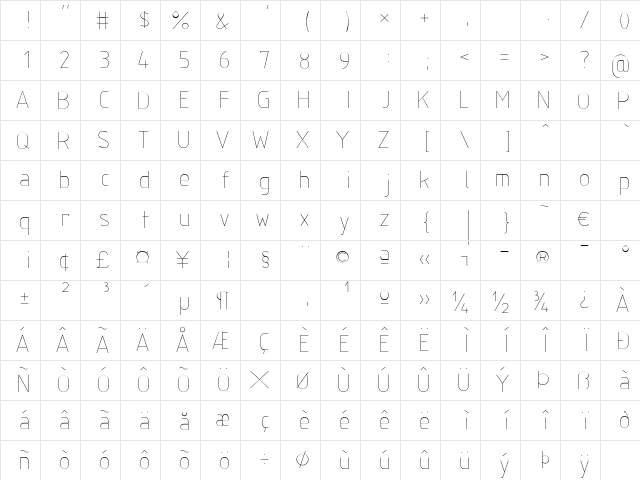
ISOCT2 Regular Font Preview
ISOCT2 Regular
ISOCT2 Regular Font Details
Design Context for ISOCT2 Typeface
ISOCT2 takes a measured approach to typography — its balanced proportions and neutral character make it a reliable workhorse for both digital and print work.